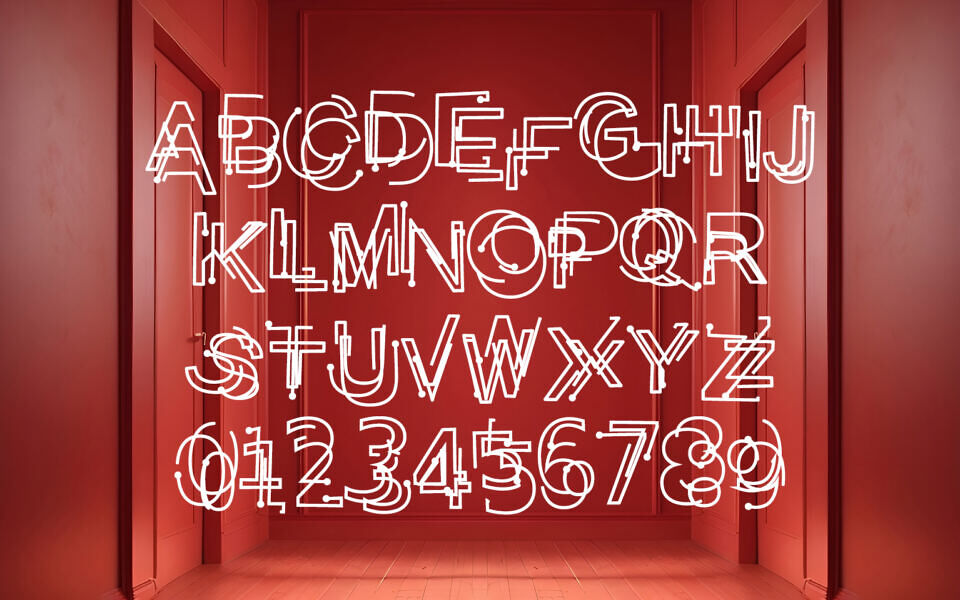
Problematic Piercer font, crafted by Vinterstille TypeFaceLab, is a striking, distorted typeface, ideal for bold, experimental designs.
Featuring 236 glyphs, its unique, layered structure with overlapping lines and geometric shapes creates a complex, futuristic aesthetic. The intricate characters evoke a modern, almost chaotic vibe, making it perfect for attention-grabbing headlines, album covers, or avant-garde art projects.